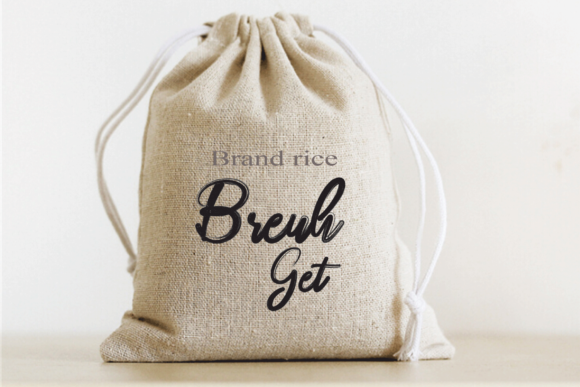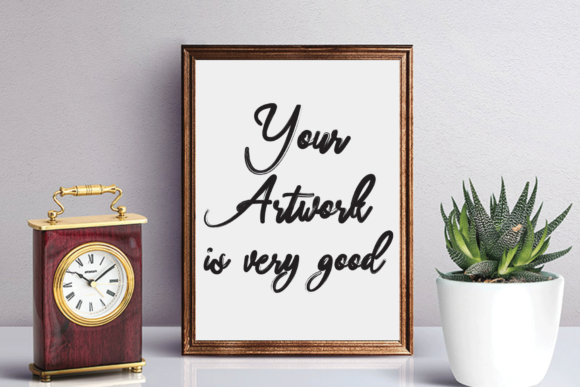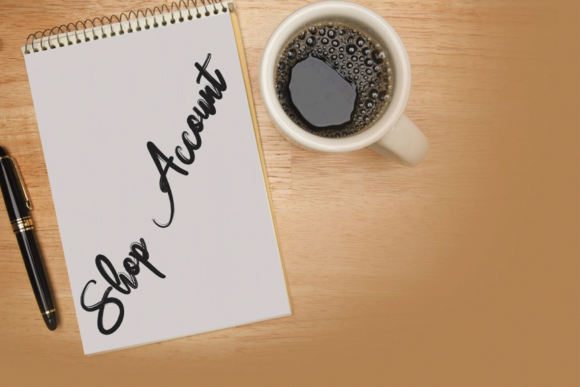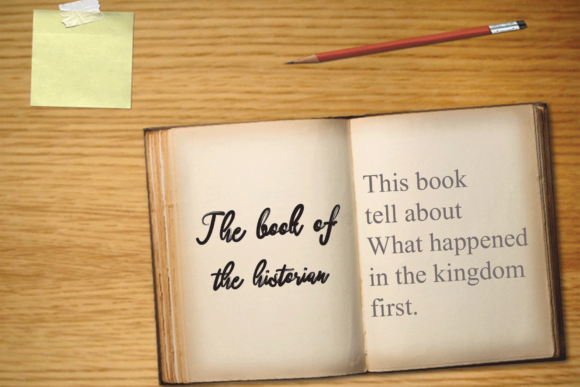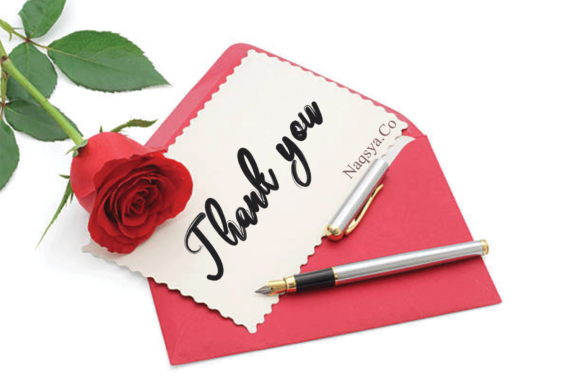
The Perfect Script for Your Next Design Project
As a designer, there’s nothing quite like the feeling of stumbling upon the perfect font to bring your creative vision to life. It’s like stumbling upon a hidden treasure, or in this case, a beautifully crafted script that adds a touch of personality to your work. For those who are always on the lookout for something unique, we have just the thing – the Anaconda Font.
This handmade script font is all about movement and energy, with dancing characters that seem to come alive on the page. With its natural writing style, the Anaconda Font is the perfect addition to any design project that needs a little extra flair. Whether you’re working on a branding project, a blog post, or even a social media campaign, this font is sure to make your designs stand out from the crowd.
Anaconda Font Key Features
- Unique Characteristics: The font features a distinctive, hand-drawn design with bold lines and intricate details, making it ideal for titles, headings, and decorative text.
Anaconda Font Review
As a designer, I was excited to dive into the Anaconda font, with its promises of a bold and eye-catching experience. Let’s see if it lives up to its hype!
- The Anaconda font is indeed bold and attention-grabbing, perfect for headlines and titles.
- The font’s unique, asymmetrical design adds a touch of sophistication to any design project.
- The font is highly legible, even at small sizes, making it suitable for various applications.
- The font’s bold design can sometimes feel overwhelming, making it difficult to use for large blocks of text.
- The font’s unique design may not be suitable for all audiences, particularly those who prefer more traditional font styles.
The Anaconda font is a great addition to any designer’s toolkit, but it’s not a one-size-fits-all solution. Its bold design is perfect for grabbing attention, but it may not be suitable for all applications. With a bit of caution and creativity, however, the Anaconda font can add a unique touch to any design project.
Practical Application Guide: Anaconda Font
Tips for Getting the Most Out of Anaconda Font
For best results, pair the Anaconda font with a bold font to create contrast and make your text stand out. You can also use the font in combination with images to create a visually appealing design.
The Anaconda font is commonly used for:
- Headings and titles
- Logo design
- Branding materials
- Infographics
Alternatives to Anaconda Font for Designers
Pacifico is a beautiful, elegant script font that works well for headings and titles. It has a similar calligraphic feel to Anaconda Font but is more refined and sophisticated. Use Pacifico when you need a font that conveys luxury and sophistication.
Comparison: Pacifico is more refined and less bold than Anaconda Font, making it suitable for more formal designs.
Great Vibes is a modern script font that is perfect for creating a sense of movement and energy. It has a similar dynamic feel to Anaconda Font but is more fluid and organic. Use Great Vibes when you need a font that adds a touch of whimsy and playfulness to your design.